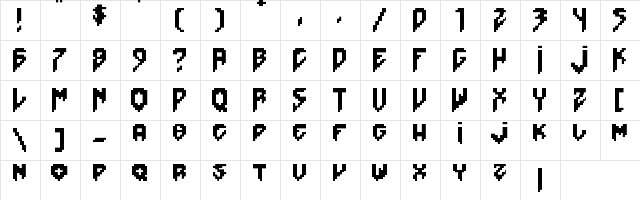
Doomed Regular
Design Context for Doomed Typeface
Doomed is a composed and adaptable typeface that performs quietly and consistently across a wide range of design contexts.